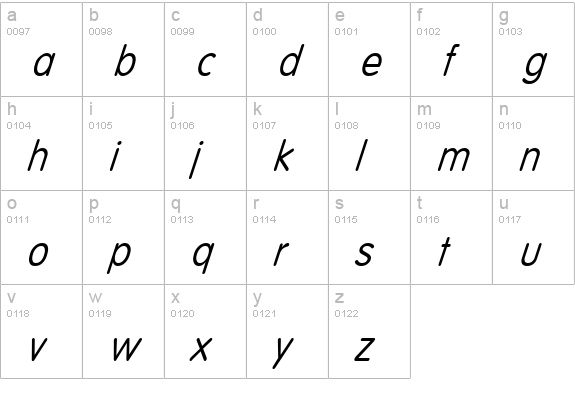
Vogue Italic is a distinctive, italic variant in the Vogue typeface family \xE2\x80\x94 well suited to design and typography projects.
Vogue Italic is a stunning and elegant font that exudes sophistication and glamour. Its slanted and cursive design adds a touch of grace and style to any project. This versatile typeface is perfect for fashion editorials, luxury branding, wedding invitations, and more. With its sleek and refined letterforms, Vogue Italic effortlessly captures attention and creates a sense of timeless beauty. What makes Vogue Italic even more appealing is that it is available for free download at FontsMarket.com. This means that you can easily access and use this exquisite font without any cost or hassle. Whether you are a professional designer or an aspiring creative, Vogue Italic allows you to add a touch of high-end elegance to your work without breaking the bank. Download Vogue Italic from FontsMarket.com today and elevate your designs to new heights. With its free availability, there is no reason not to indulge in the luxury and allure that this font brings. Let Vogue Italic be your go-to choice for adding a touch of sophistication and refinement to your next project.